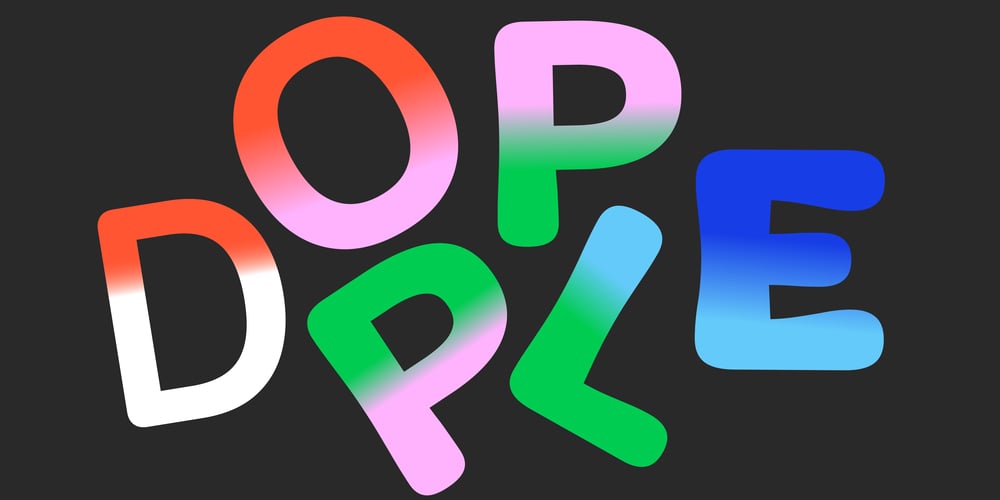
Dopple
Dopple font
Dopple Font Family was designed by Colophon Foundry and published by Colophon Foundry. Dopple contains 20 styles and family package options. Dopple, a name born out of various iterations and translations of doubling and duality, is an exploration into the extremes of expression within a single typographic family. Moving from a Regular to a Black weight, the design becomes increasingly graphic in its transition from straight to flared lines. Although monolinear in contrast, the more neutral Regular weight has its own idiosyncratic moments — with rounded corners and asymmetrical shapes — which are expanded and extrapolated as it travels through the weight range. As such, subtle tapering at letter joints in Dopple Regular become flared curves that threaten to bulge out of their bounding outlines in the Bold and Black weights.Available in both Condensed and Proportional widths, a set of corresponding Italics adds a further expressive element whereby protruding curves mark ‘exit strokes’ in an abstract reference to traditional calligraphy and True Italics. Three variable axes, Weight, Width and Slant, allow users to explore not only the extremes of the design but also more subtle, intermediary moments.